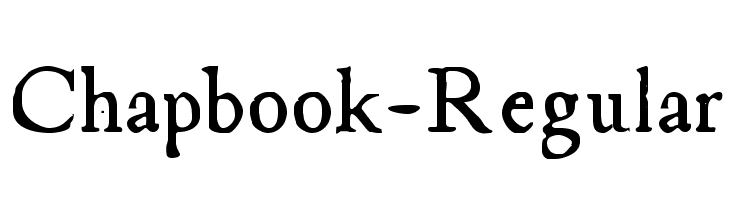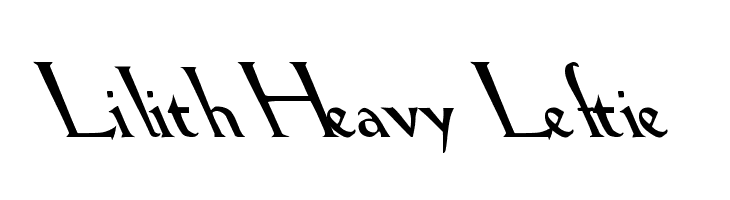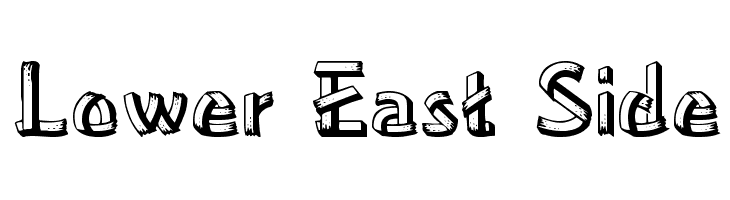
A vintage, handcrafted font with a rustic and artistic style.
A medieval-inspired font with sharp serifs and curved strokes, offering a bold and elegant appearance.
A bold, angular font with a modern and edgy style.
A geometric, modern font with tall, narrow characters and sharp angles.
A bold, three-dimensional font with a shadow effect, ideal for impactful headlines.
A bold, angular serif font with dramatic flair and modern elements.
A bold, angular font with a gothic influence and unique flourishes.
A classic serif typeface with high contrast and elegant strokes.
An ornate, decorative font with intricate designs and bold, artistic flair.
A bold, decorative font with a hand-drawn, three-dimensional style.